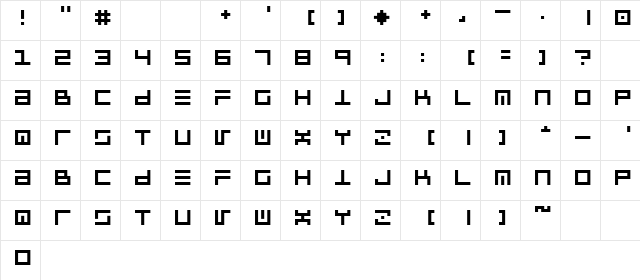
Frosty Cologne Regular
Design Context for Frosty Cologne Typeface
Frosty Cologne takes a measured approach to typography — its balanced proportions and neutral character make it a reliable workhorse for both digital and print work.